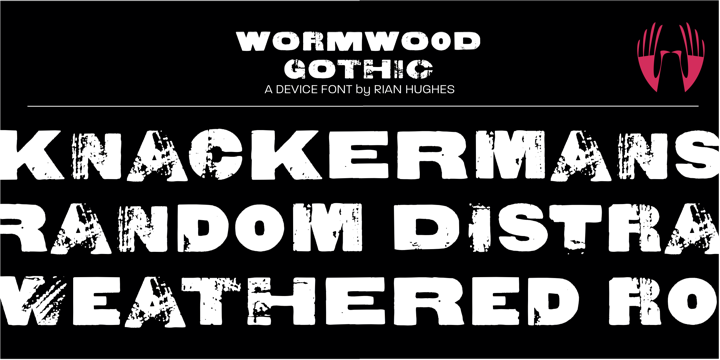
Wormwood Gothic
from Device
Designed by: Rian Hughes
Designed when: 2005
Wormwood Gothic
Retaining all the imperfections and irregularities of wood type, Wormwood Gothic is a gothic sans with all the naive and uneven character shapes typical of the period.
The ‘capitals’ feature extended characters, while the ‘lower case ’ features capitals of squarer proportions. Freely mix the two in word settings or colour in red and black for a Dada collage, billposter, urban grit or antique Americana atmosphere.